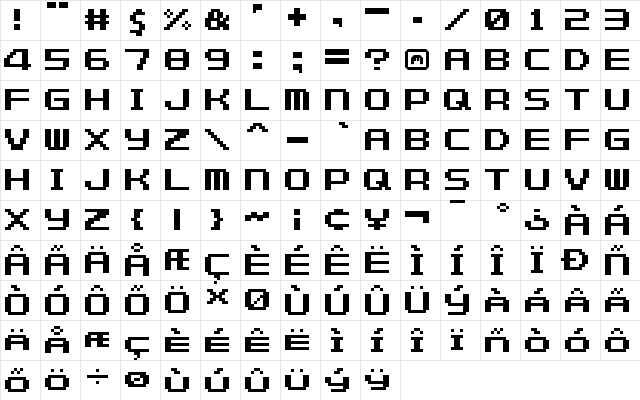
Complete F-Zero GBA Text 1 Regular glyph index. Displaying only characters natively supported by F-Zero GBA Text 1 Regular font.
F-Zero GBA Text 1 is a composed and adaptable typeface that performs quietly and consistently across a wide range of design contexts.